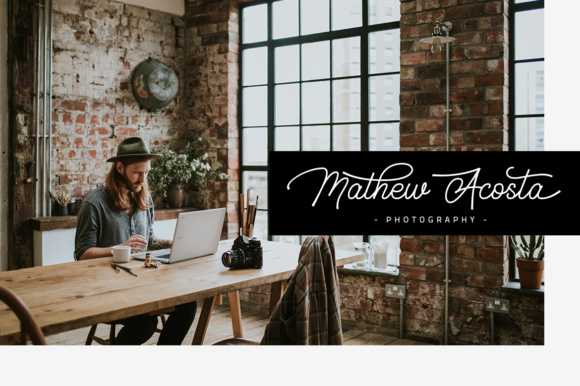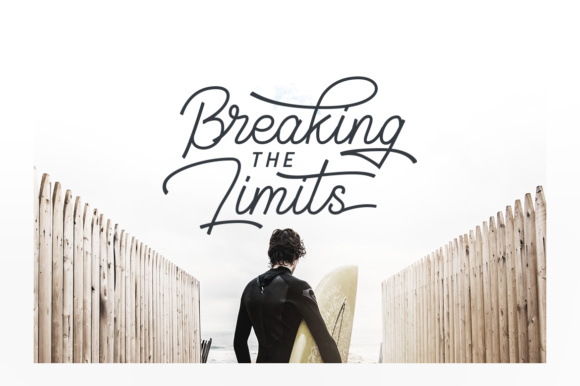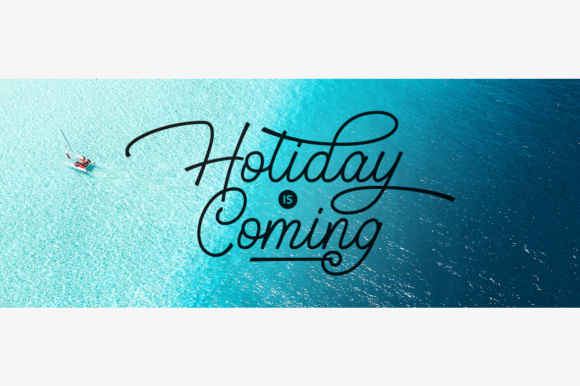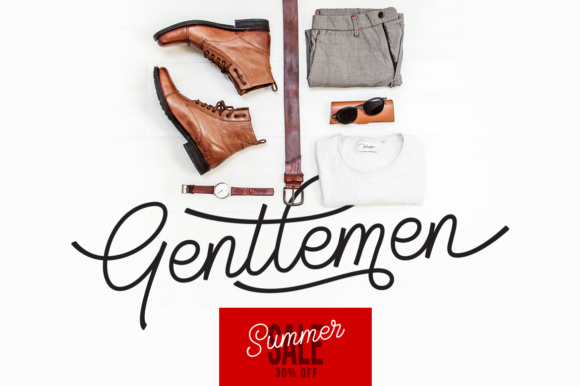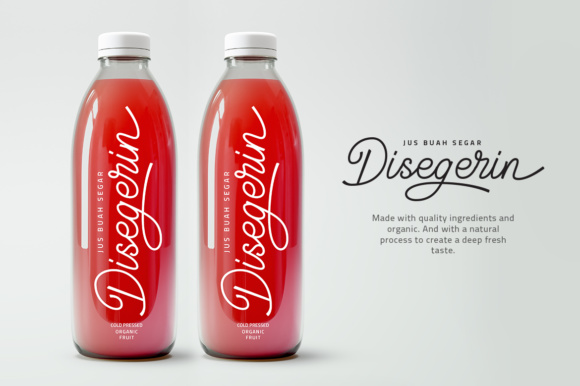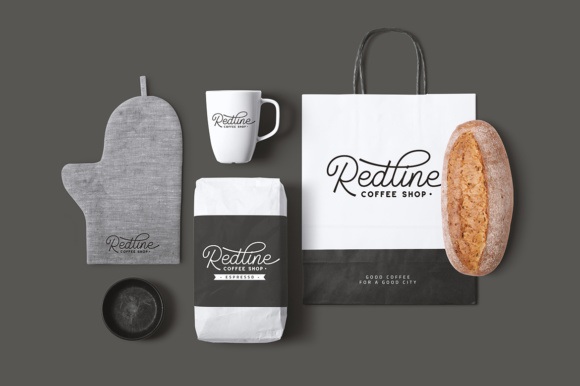
The Designer’s Delight: Uncovering the Charm of Geraldyne Font
I’ll never forget the time I was working on a project for a client who wanted a font that was both elegant and playful. I spent hours scouring the internet for the perfect match, but nothing seemed quite right. That was until I stumbled upon Geraldyne Font. This beautiful, monoline font has been a game-changer for me, and I’m excited to share its charm with you. ✨
I’ve had the pleasure of working with Geraldyne Font for several projects now, and here’s what I think:
- ✅ Clean and elegant design: Geraldyne Font boasts a sleek, monoline design that’s perfect for adding a touch of sophistication to any project.
- ✅ Highly versatile: This font works beautifully for both digital and print projects, from social media graphics to invitations and more.
- ✅ Easy to read: Despite its elegant design, Geraldyne Font remains highly legible, even at smaller sizes.
- ✨ OpenType features: This font comes with a range of OpenType features, including stylistic alternates and glyphs, which can add an extra layer of creativity to your work.
While Geraldyne Font is undoubtedly a stunning font, there are a few quirks to be aware of:
- ⚠️ Limited availability of certain characters: Some users have reported that certain characters, such as ligatures, are not available in all versions of the font.
- 🤔 May not be suitable for very large or very small text: While Geraldyne Font is highly legible, it may not be the best choice for very large or very small text, as some details may become lost.
The Story Behind Geraldyne Font
While the exact origins of Geraldyne Font are unclear, it’s believed to have been designed by a talented type designer who sought to create a clean, elegant font that would add a touch of sophistication to any project. The result is a beautiful, monoline font that’s perfect for a wide range of creative applications.
| Font Name | Geraldyne Font |
| Author | Weape Design |
Q: What type of projects is Geraldyne Font best suited for?
A: Geraldyne Font is highly versatile and can be used for a wide range of projects, from digital graphics to print materials, such as invitations, business cards, and more.
Q: Is Geraldyne Font available in different weights or styles?
A: Geraldyne Font is available in a range of weights and styles, including regular, bold, and italic. However, the exact weights and styles available may vary depending on the font version.